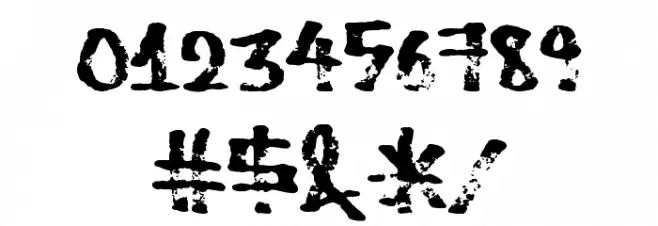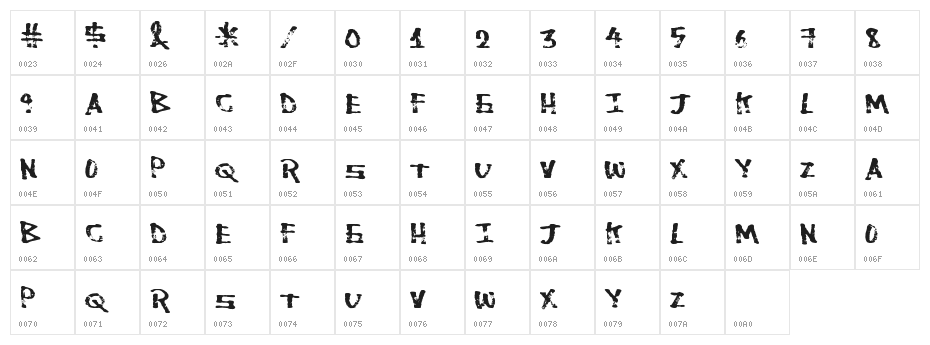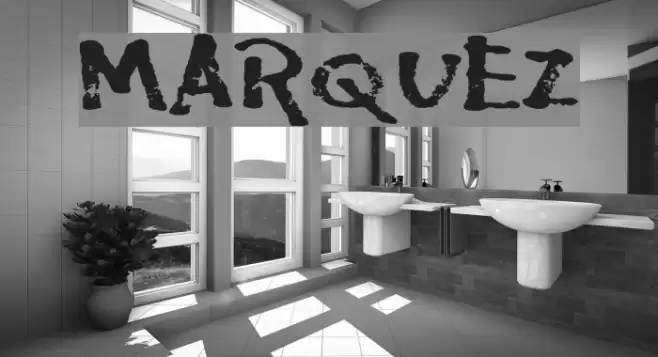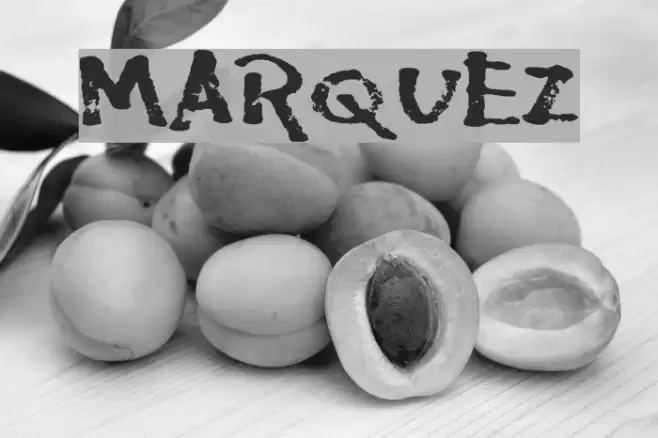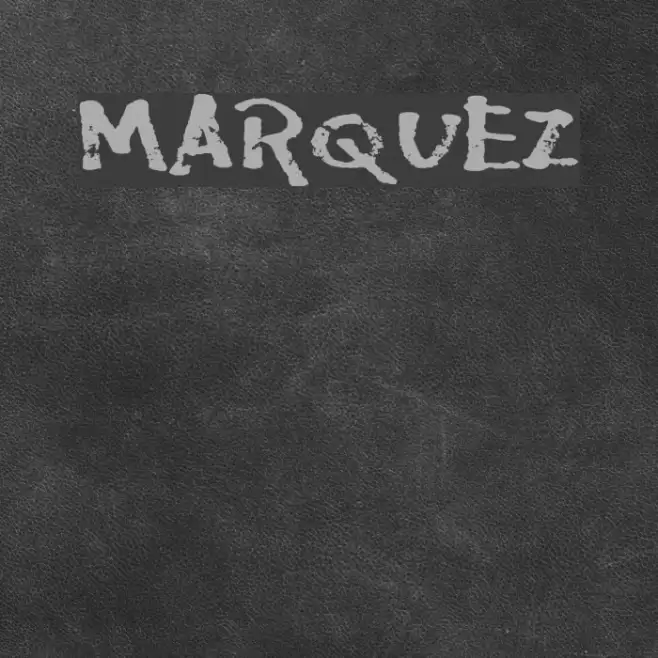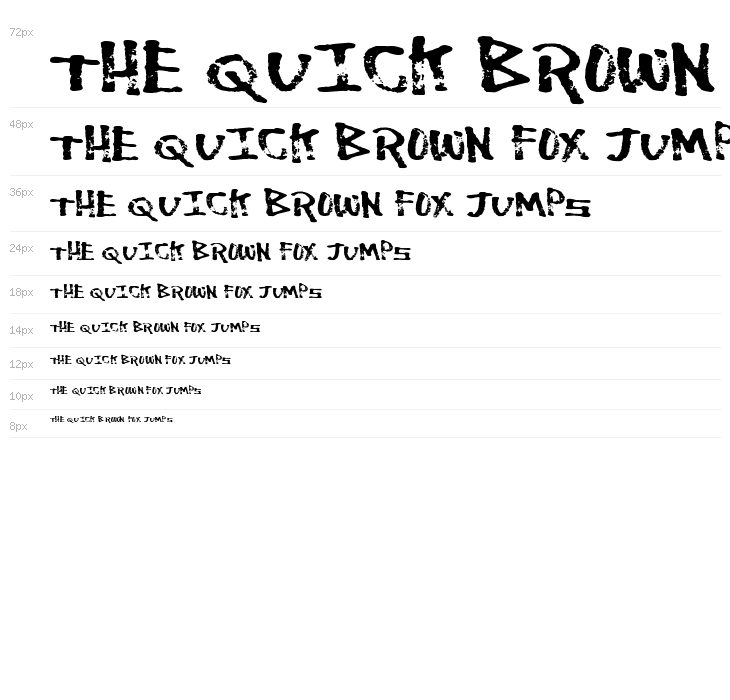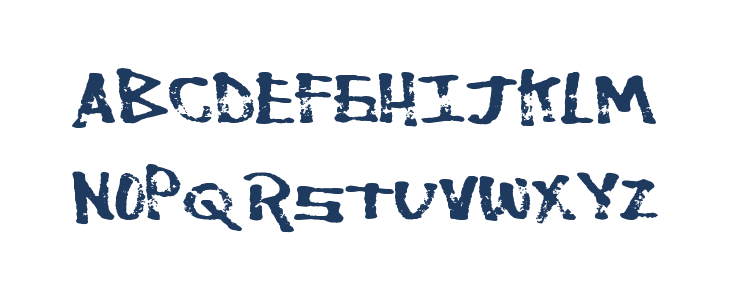
Marquez Font
Marquez Description
This font features a bold and distressed style, characterized by its rough, textured appearance. Each character appears as if it has been stamped or painted with a brush, giving it a raw and artistic feel. The uppercase and lowercase letters maintain a consistent width, while the numbers and special characters follow the same rugged aesthetic. The font's unique texture adds a sense of dynamism and energy, making it stand out in any design. Its irregular edges and varied stroke thickness contribute to its handcrafted look, ideal for projects that require a touch of creativity and individuality.
| Proposed Projects | Ideal for posters, album covers, branding, and artistic projects that require a bold, creative touch. |